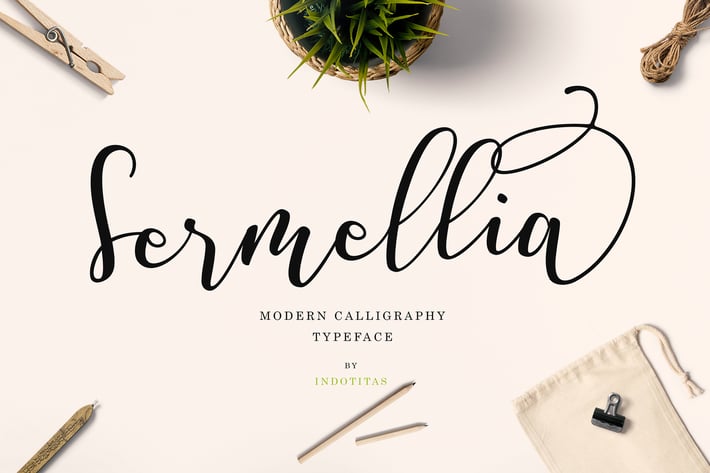
Sermellia Modern Calligraphy Typeface
Introducing of our new product Sermellia Modern Calligraphy Typeface
Inspired by modern and stylish calligraphy, perfect for many different project such as logos & branding, invitation, stationery, wedding designs, social media posts, advertisements, product packaging, product designs, label, photography, watermark
- Basic Latin A-Z and a-z
- Numbers
- Symbols
- 123 Alternates Character
- Extended Latin Character
- Supported with contextual alternates mode
- Opentype Feature
- PUA Encode
- Multingual Support